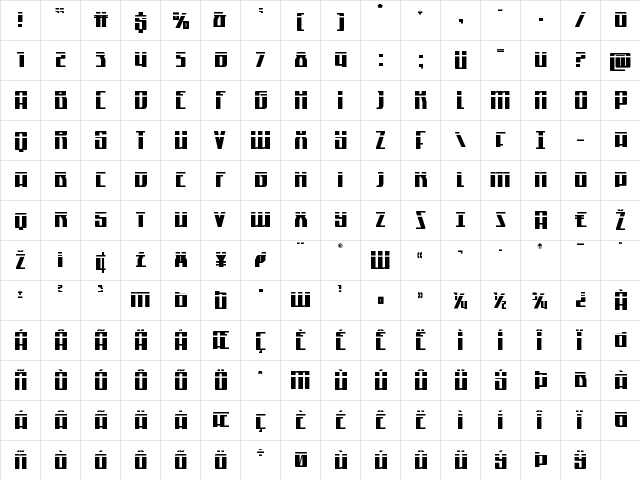
Quantum of Malice Laser Regular
Design Context for Quantum of Malice Laser Typeface
Quantum of Malice Laser is a composed and adaptable typeface that performs quietly and consistently across a wide range of design contexts.